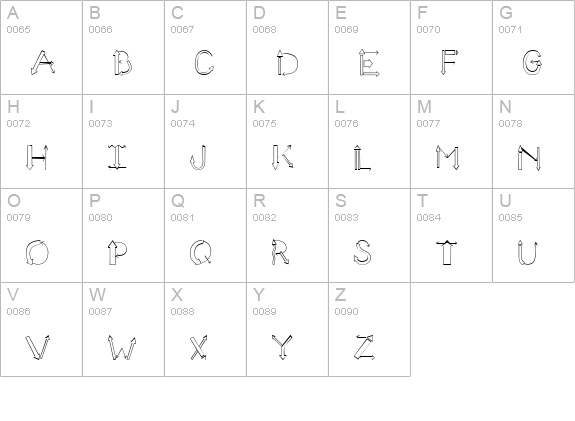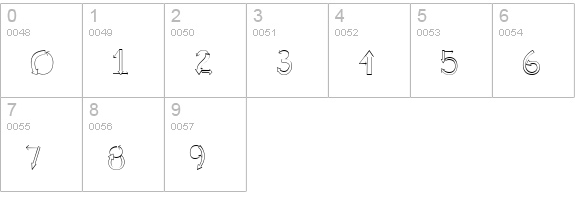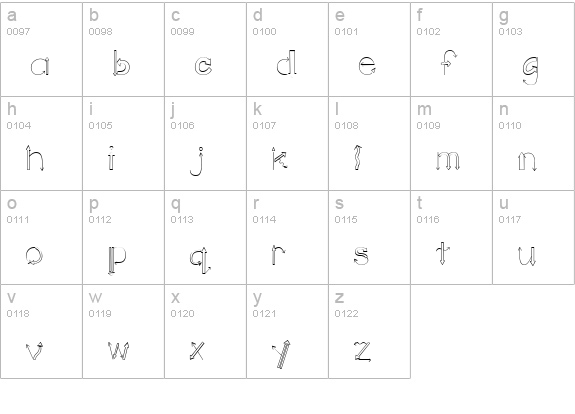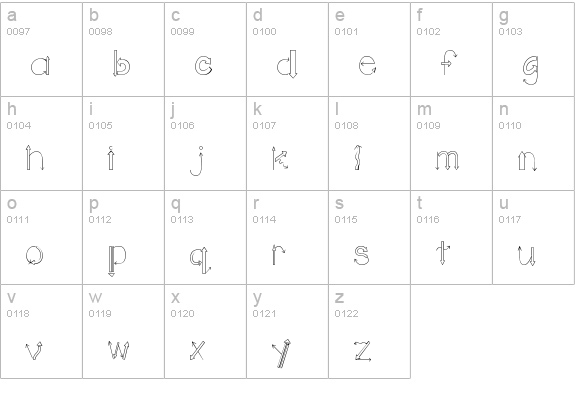
CK Arrows Font Details
Introducing CK Arrows, a dynamic and versatile font designed to add a touch of elegance and sophistication to your projects. This unique typeface features a collection of beautifully crafted arrows that can enhance the visual appeal of any design. With its sleek and modern design, CK Arrows is perfect for a wide range of applications, from branding and packaging to signage and stationery. The best part? CK Arrows is available for free download at FontsMarket.com. This means you can easily access this stunning font and use it in your personal or commercial projects without any cost. Whether you're a seasoned designer or a beginner looking to elevate your creations, CK Arrows is a must-have addition to your font collection. So why wait? Download CK Arrows today and unleash your creativity with this stylish and eye-catching font.